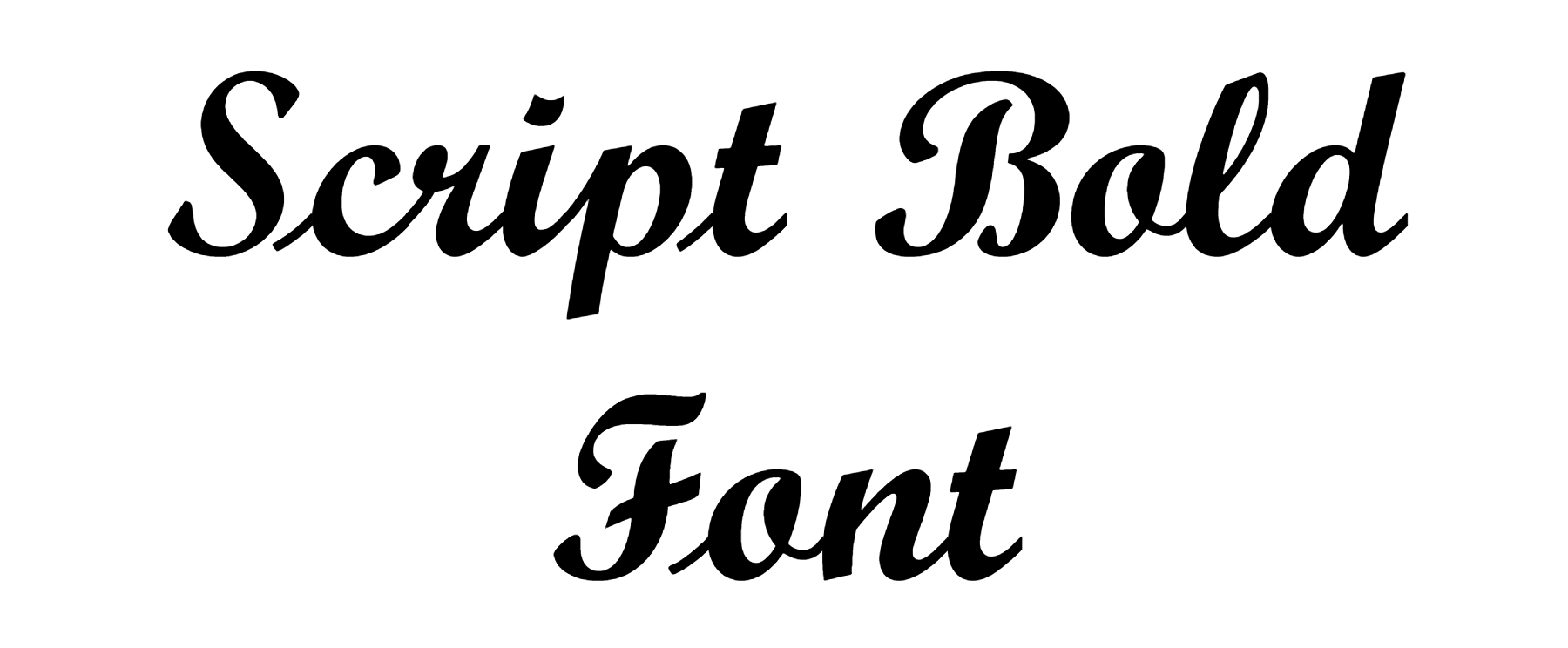
Script Bold
- Designer: Adobe Systems Incorporated
- Year: 1989 (from the copyright line in the font)
- Glyphs: 231
What You Can Type With Script Bold
Script Bold covers the full alphabet in upper and lowercase, plus all ten numbers, so you can set names, dates and prices without switching fonts. Common punctuation such as &, !, ? and @ is included as well. It also has the accented letters you need for Spanish, French, German, Portuguese and Italian.
Where Script Bold Works Best
Script Bold is a natural fit for wedding invitations, logos and signature-style headings. The file has no kerning data, so in logos and big titles check pairs like AV, To and Wa and tighten the spacing by hand. Script fonts read best in short bursts, so keep it to names, titles and one-line quotes. Skip all caps: script capitals are drawn to start a word, not to fill one.
Who designed Script Bold font?
Does Script Bold support accented letters?
Yes. Script Bold includes the accented letters needed for Spanish, French, German, Portuguese and Italian, so it works for more than just English.